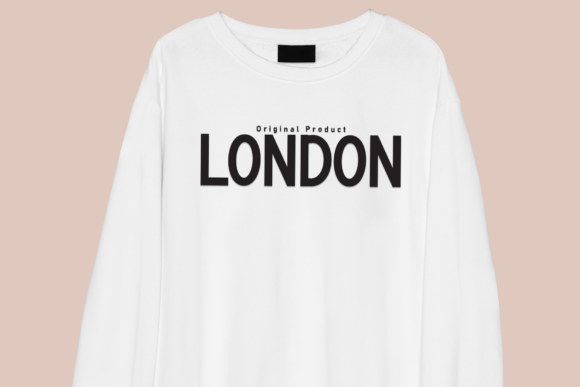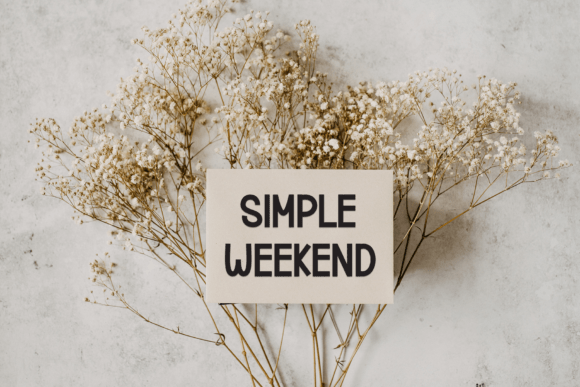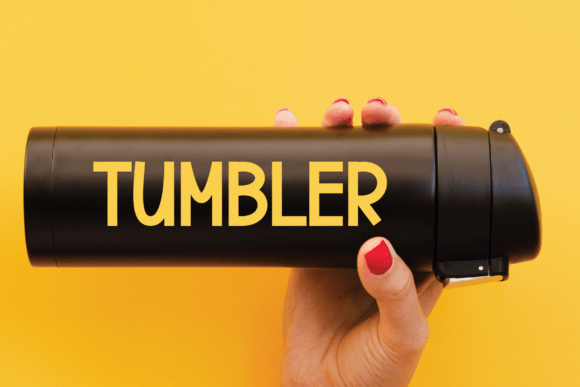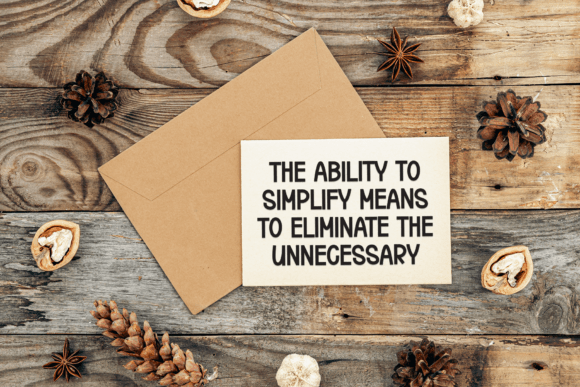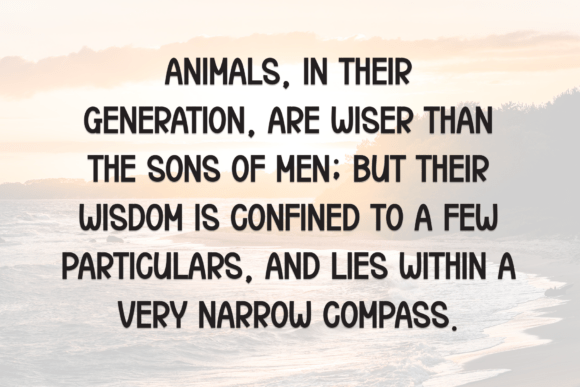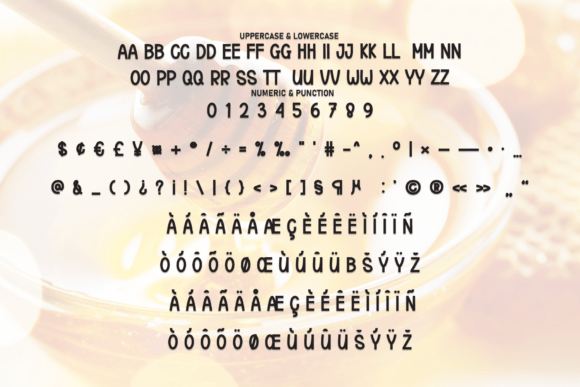
The Sweet Allure of Typography
Have you ever sat down to create a wedding invitation or a heartfelt birthday card, only to be stuck on the perfect font to convey your emotions? I know I have. The pressure to find a font that captures the essence of the moment can be overwhelming. But what if I told you there’s a font that’s been specifically crafted to sprinkle a little joy and vitality into your designs?
Enter Honey Font, a delightful handwritten display font designed to add a touch of warmth and personality to your creations. This font is a game-changer for designers, offering an unbeatable charisma that elevates your masterpieces to new heights. With its tender bends and jovial tone, Honey Font is the perfect tool for crafting an enduring, captivating impression that leaves a lasting impression on your audience.
Honey Font Key Features
- Font Size: The font family includes 6 weights, ranging from Light (400) to Black (900), providing a wide range of options for designers and typographers.
- Unique Characteristics: Honey Font features a unique blend of modern and vintage elements, with subtle texture and organic feel, making it ideal for creative and artistic projects.
- Language Support: Honey Font supports a wide range of languages, including Latin, Cyrillic, Greek, and many others, making it a versatile choice for international design projects.
Honey Font Review
I recently had the chance to work with the Honey Font, and I must say it’s been a pleasant experience. ✨ The font’s unique combination of modern and vintage elements has made it a great choice for various design projects.
- The font’s versatility – it’s suitable for both digital and print media.
- Its legibility – the font is easy to read, even at smaller font sizes.
- Customization options – the font’s open-source nature allows for easy modification and adaptation to specific design needs.
- Limited font sizes – the font’s design starts to degrade at larger font sizes.
- Lack of support for certain languages – the font’s character set is limited, which can be a problem for multilingual designs.
Overall, I’d say the Honey Font is a solid choice for designers looking for a unique and versatile font. While it has its limitations, its strengths make it worth considering for various design projects.
Honey Font: A Practical Application Guide
Tips for Getting the Most Out of Honey Font
For optimal results, use Honey Font in combination with other design elements to create a visually appealing and harmonious design.
Experiment with different font sizes, colors, and styles to create a unique and eye-catching look.
Honey Font is ideal for:
- Home decor and furniture design